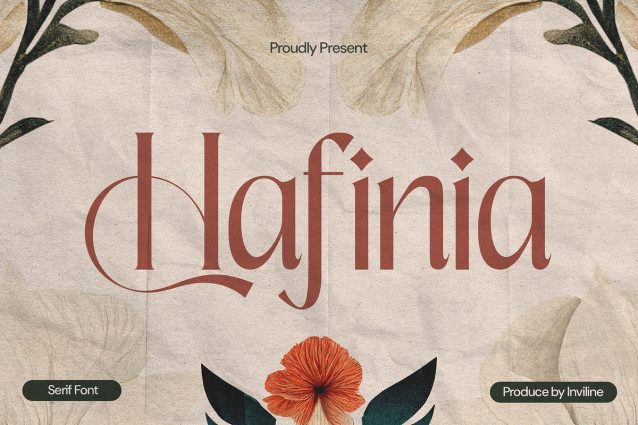
Hafinia Font
Hafinia Font – Elegant Serif Font. Intricate details and elegant flourishes perfect for logos, branding, wedding invitations, and more. Download now and elevate your designs!